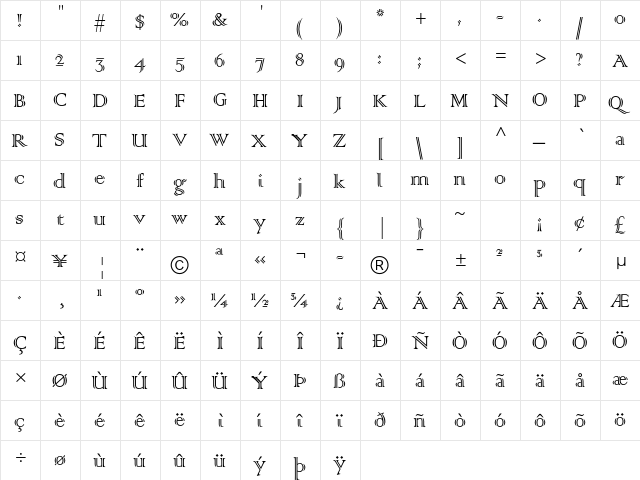
Colonna MT Std Regular Font Preview
Colonna MT Std Regular
Colonna MT Std Regular Font Details
Design Context for Colonna MT Std Typeface
Colonna MT Std is a composed and adaptable typeface that performs quietly and consistently across a wide range of design contexts.